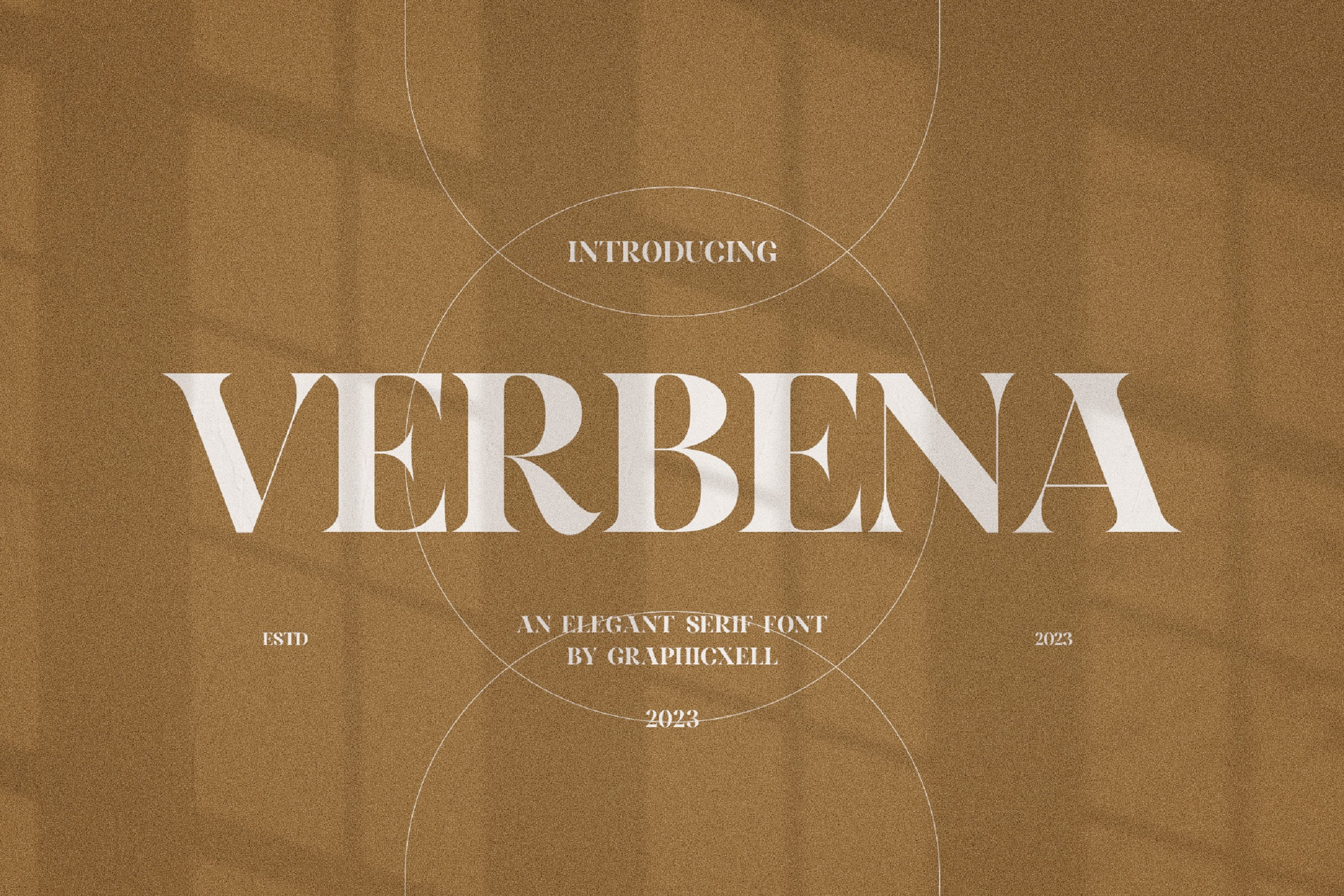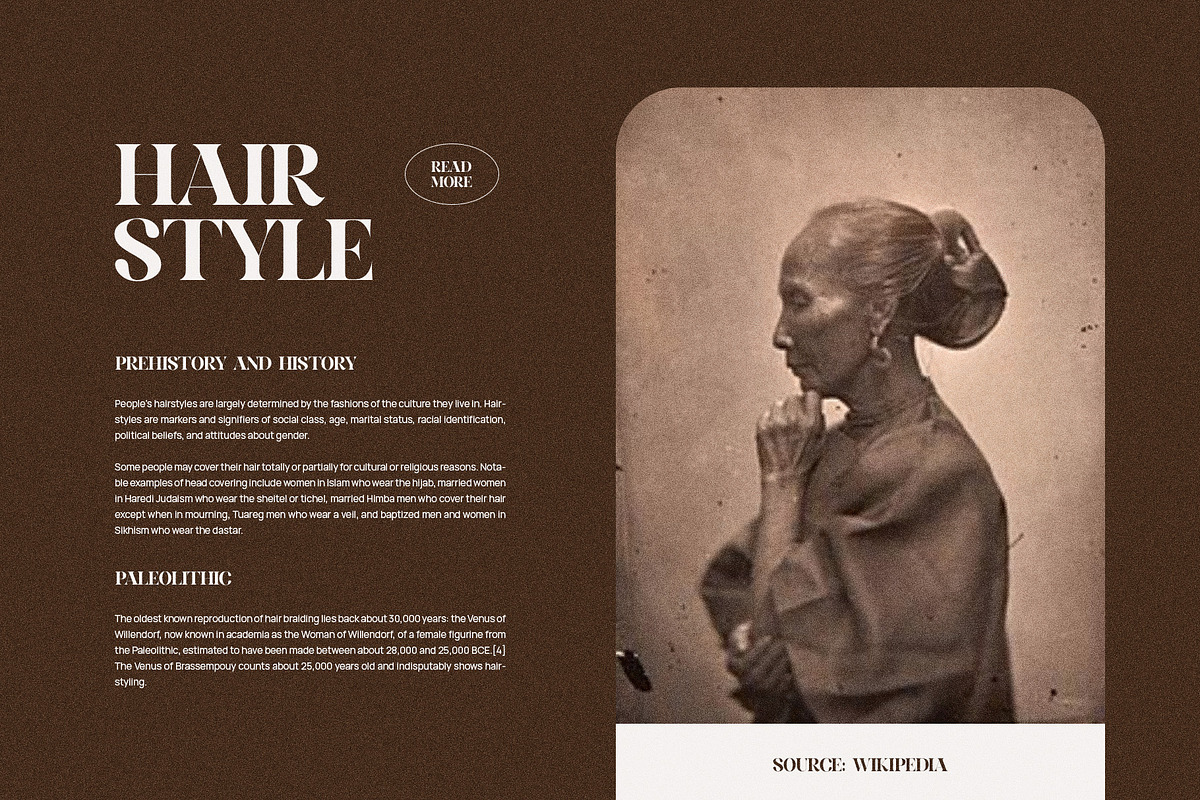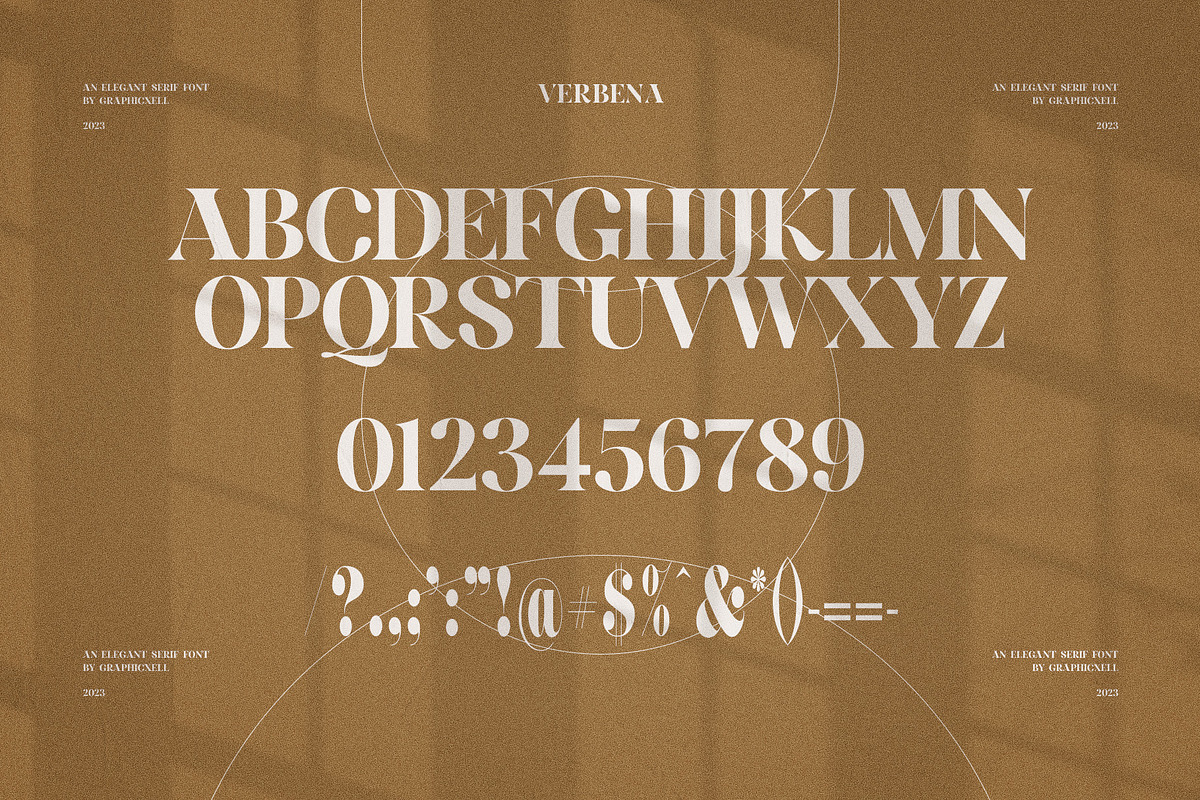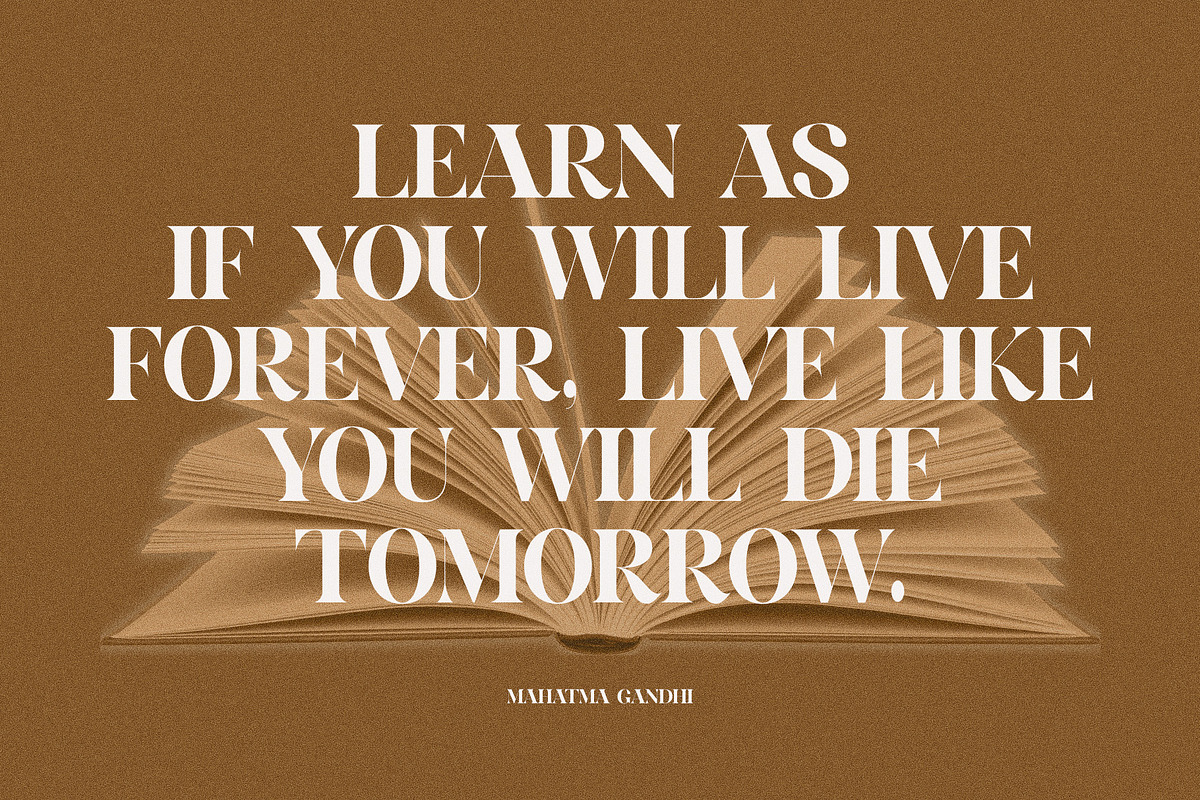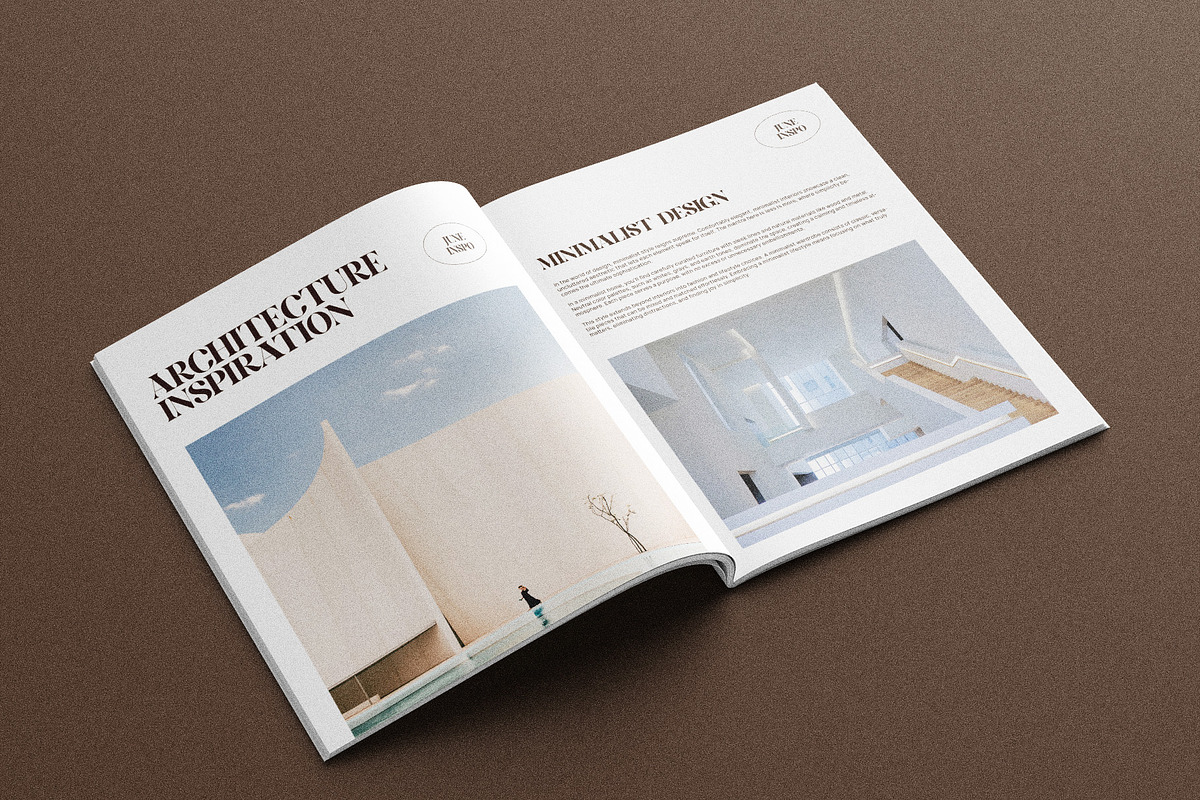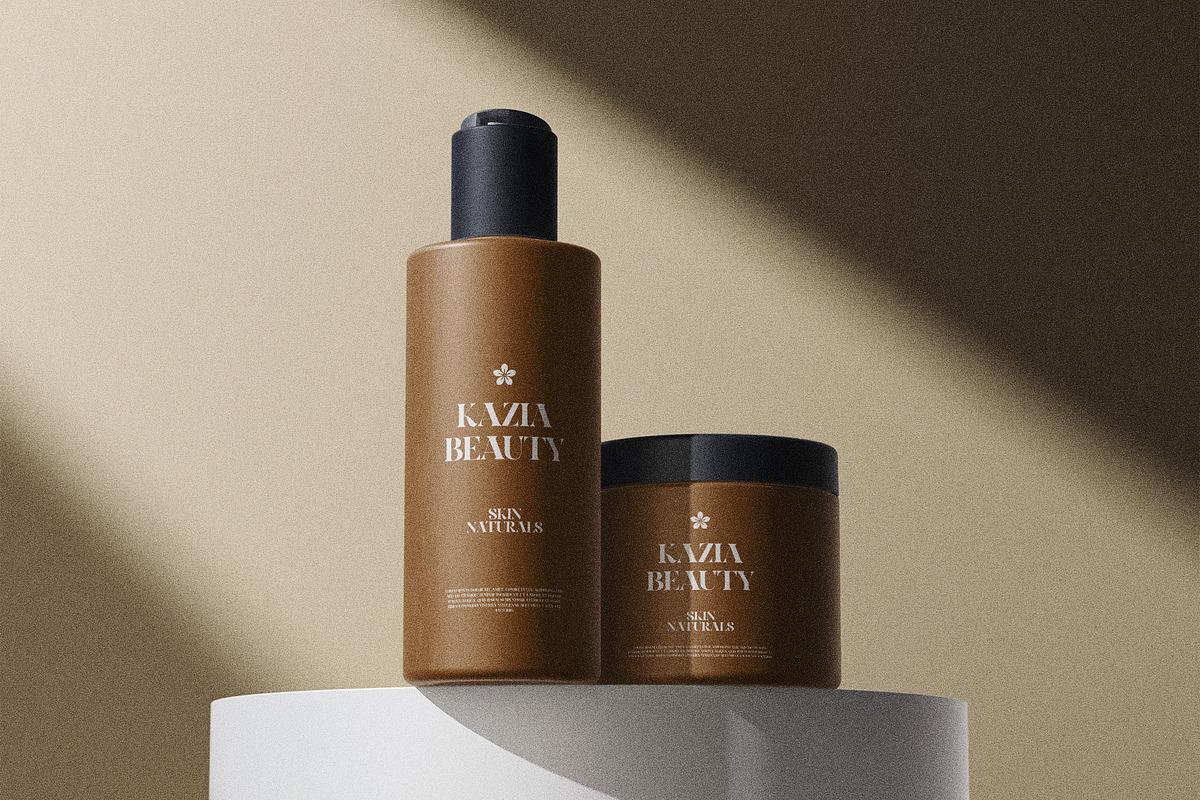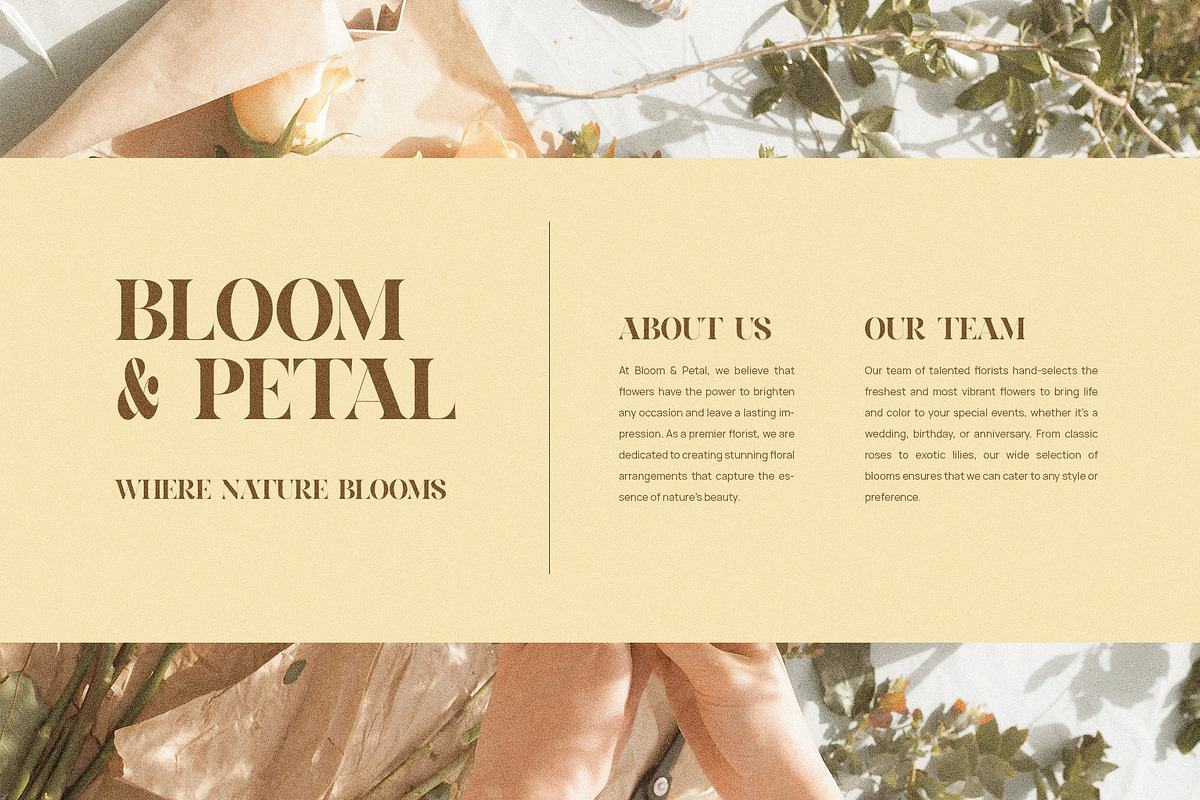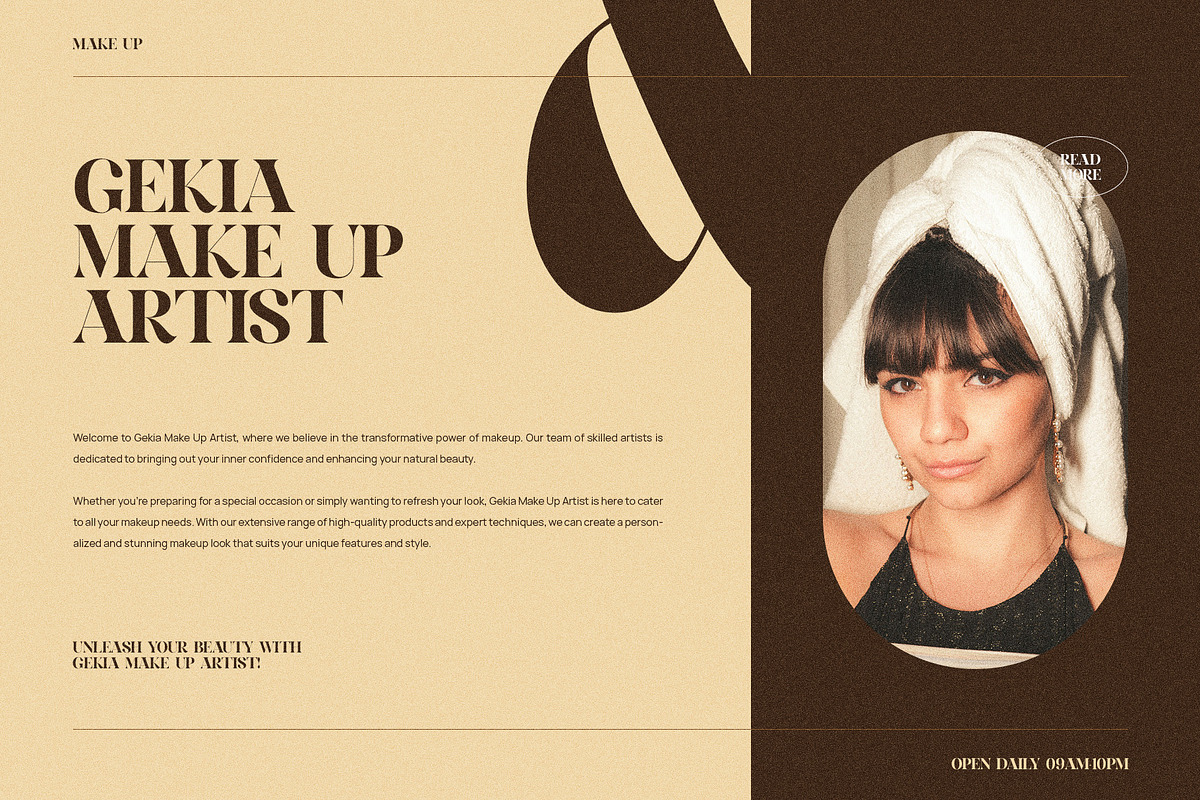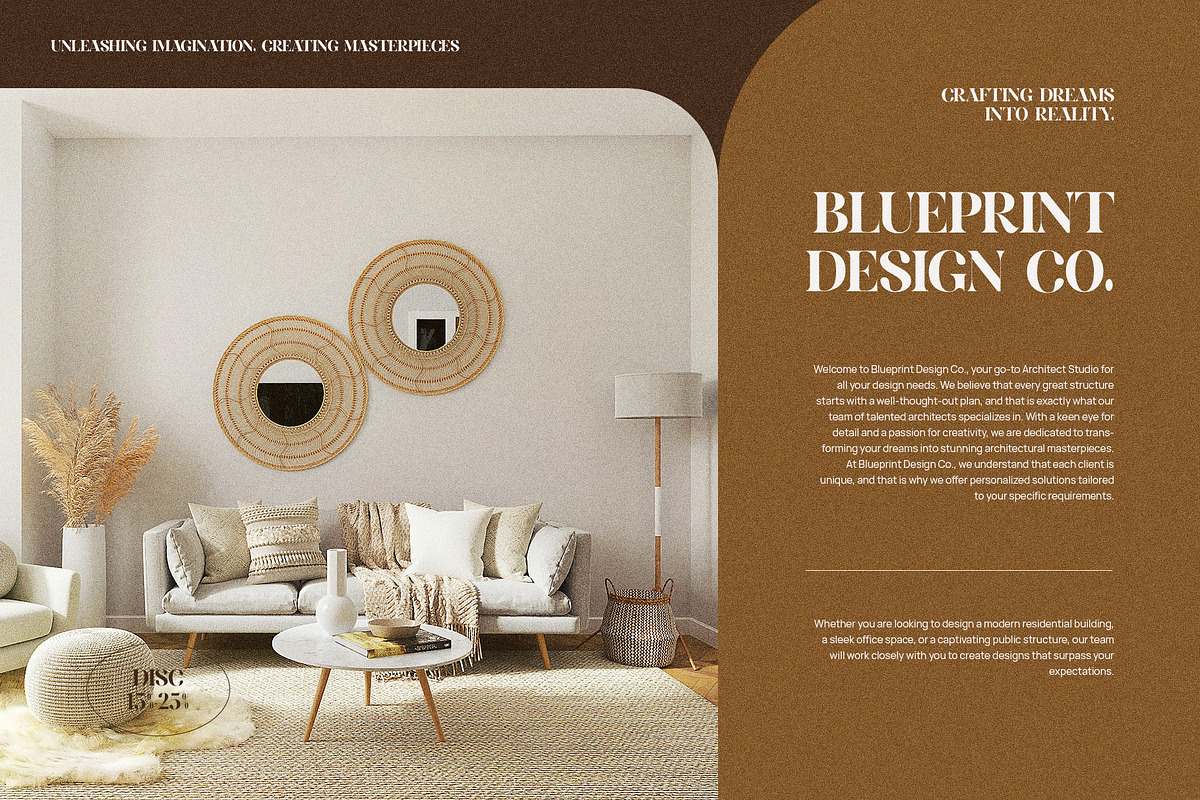
Verbena Elegant Serif Font Typeface
Verbena Elegant Serif Font Typeface is a newcomer font with the serif type. This display font really looks elegant with its typical serifs or counterstrokes. It features a thin line in the middle and widens as it approaches the tip. This is what makes the font have a sophisticated charm. With a versatile use, this serif font is very useful to optimize your typography. Whether you want to enchant headlines, branding, or logos, Verbena could be a perfect choice. This font is also suitable for magazine headers, product packaging, home-ware designs, branding projects, or as a luxurious overlay to a background image. The bracket is crafted with a smooth curve while the counterstroke comes very sharp. These characteristics are what creates professionalism. Whether you use this font as a plain text or combine it with an existing design, the Verbena Elegant Serif Font Typeface will always win people’s hearts.